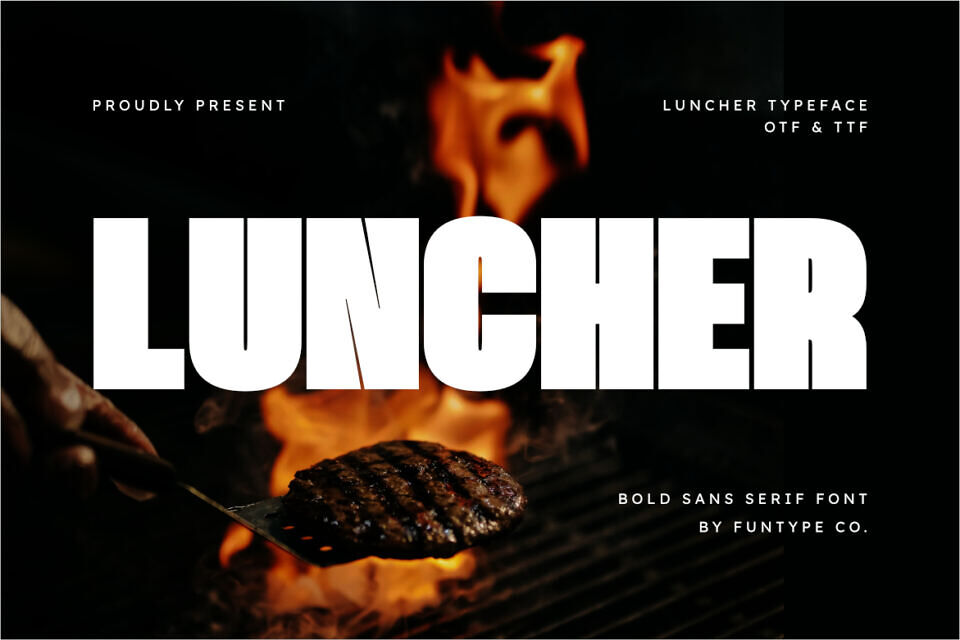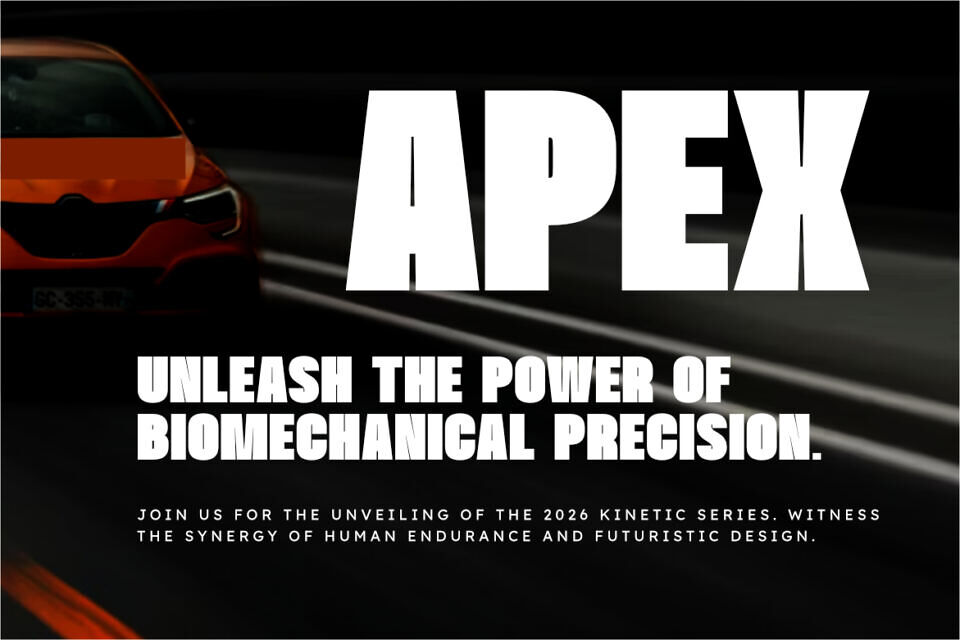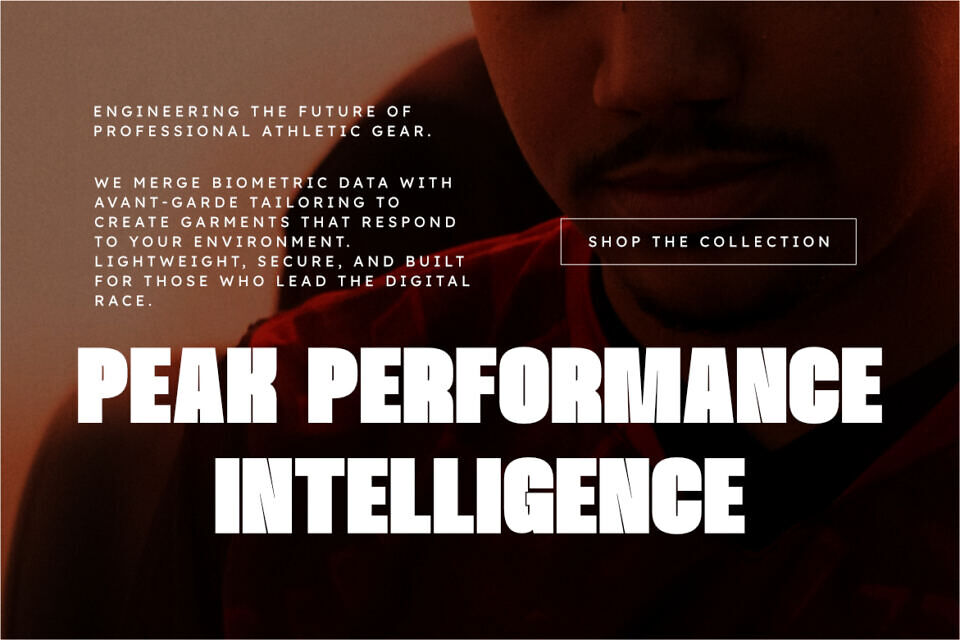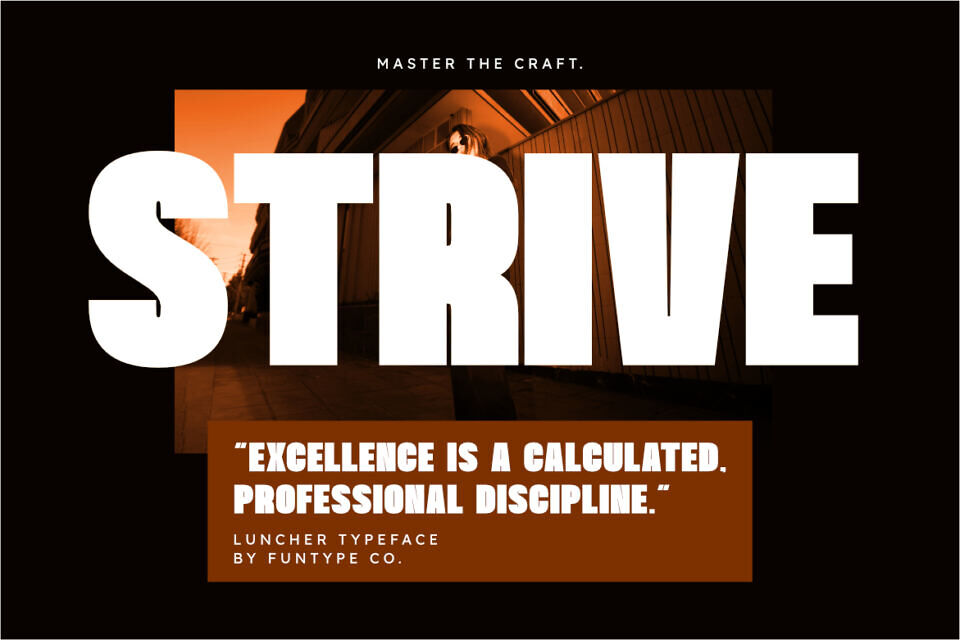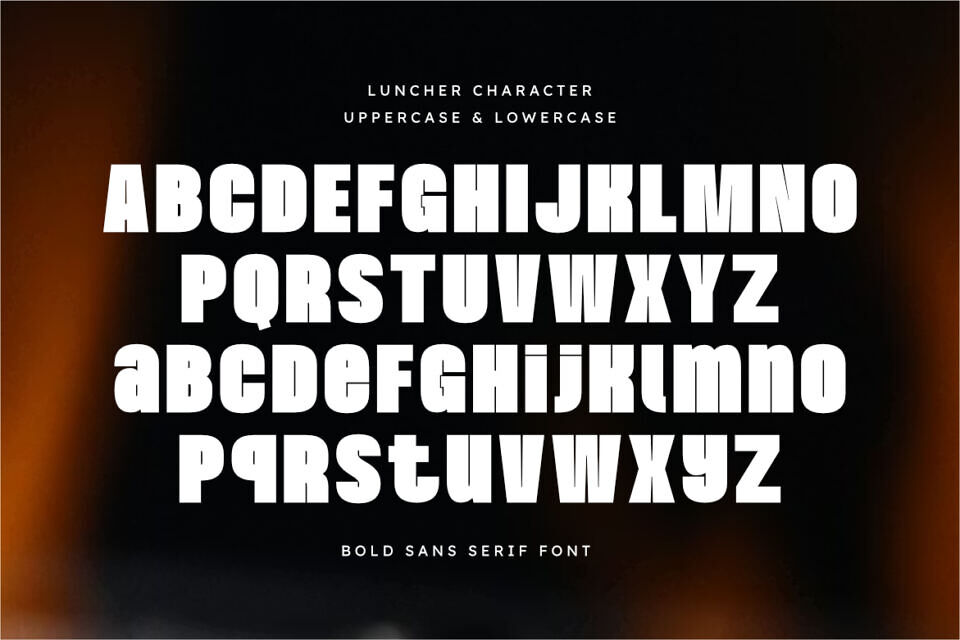
Luncher Font
Luncher is a sophisticated and powerful bold sans serif font, thoughtfully designed to capture the essence of culinary strength and contemporary storytelling. With its thick, solid structure and clean geometric lines, Luncher offers a professional aesthetic that brings a touch of appetizing authority to any creative project.
Whether you are crafting a striking food brand logo, a sleek restaurant menu, or bold editorial layouts, Luncher provides a seamless blend of modern flair and timeless power.